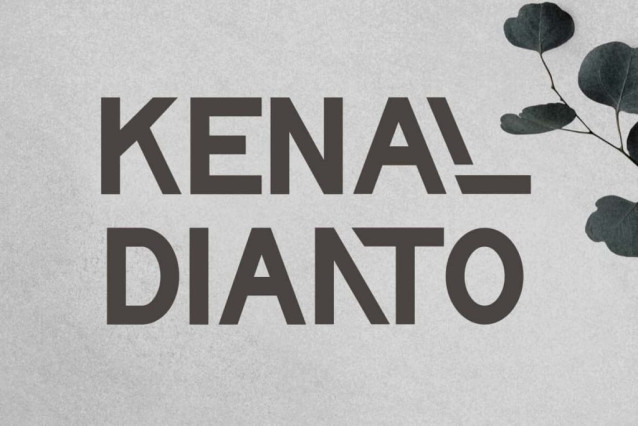
Kenal Dianto Font
Kenal Dianto Font is a striking techno typeface that blends bold geometry with futuristic flair for standout creative projects. This font can be used for anything such as banners, blogs, covers, editorial, flyer, headline, invitations, logos, mockup, poster, printed materials, quotes, signage, sticker, t-shirt designs, template, website, etc.
Kenal Dianto Font includes full set of Uppercase and Lowercase Basic Characters, Numbers, Punctuation, Symbols and Ligature. Bold, squared shapes infused with a retro-futuristic vibe. Perfect for automotive, clothing brand, creative studio, cycling, entertainment, game developers, graphic design, music, sports, technology, web designer, etc.